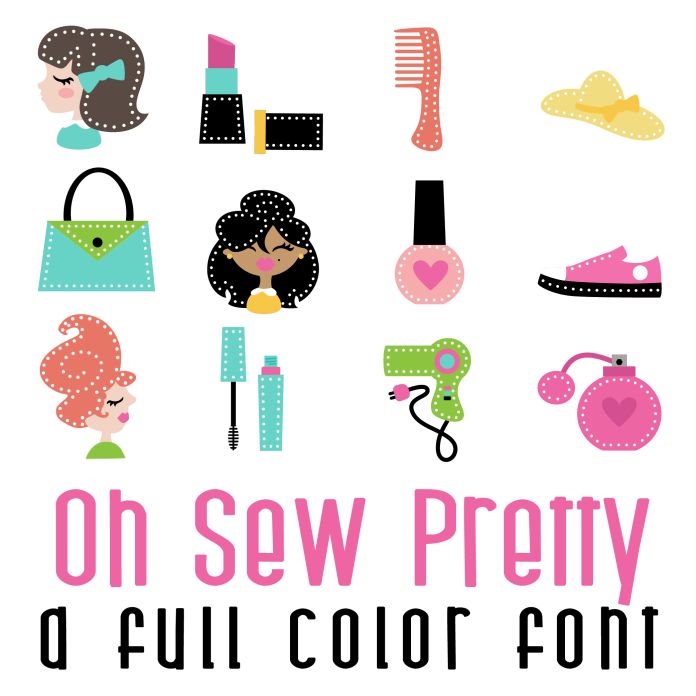
This fun full color font features 26 fun girly images with holes for adding yarn and creating sew card crafts! Perfect for cards, crafts, parties, gifts, decor, planner stickers, classrooms, scrapbook pages and more!